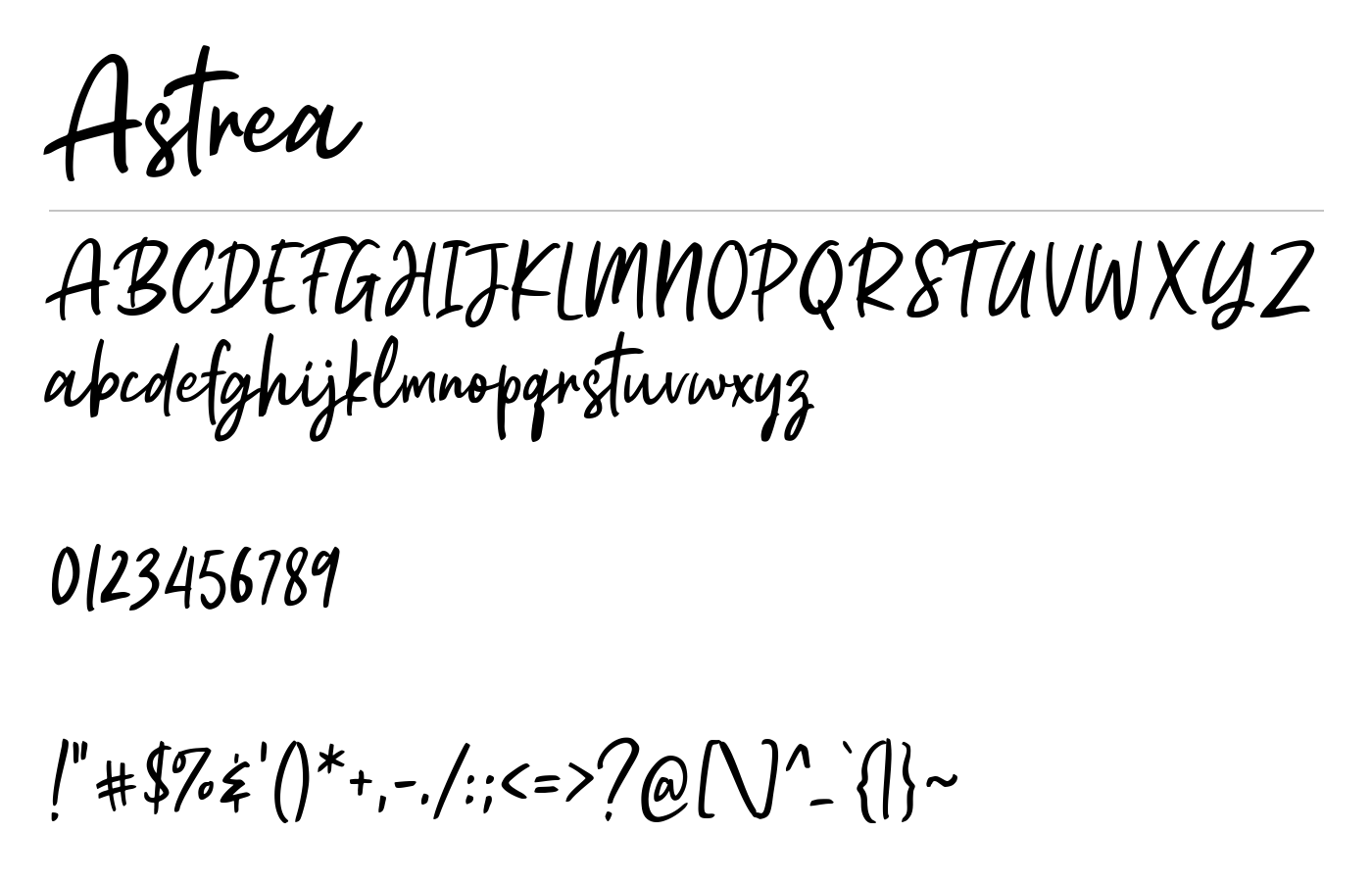
Astrea is a casual, handwritten script font with a friendly and natural feel, featuring smooth, flowing strokes and a moderate contrast that mimics authentic brush lettering. Its slightly tall x-height and lively letterforms make it perfect for creative projects, branding, and invitations that seek a personal and approachable touch. This font works beautifully in designs that want to communicate warmth and individuality while maintaining readability.
Astrea Font
About Astrea Font